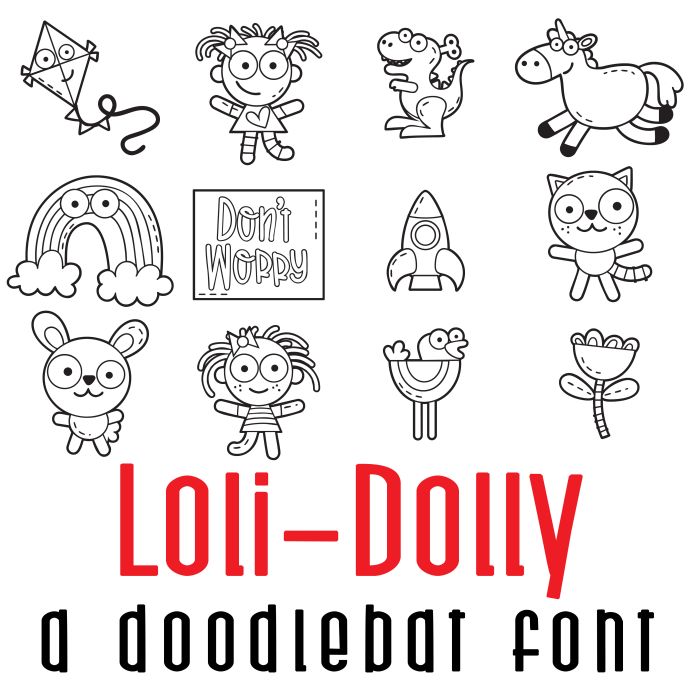
This adorable doodlebat font features 26 stitched cute images of dolls, rainbows, animals, and toys! Perfect for cards, crafts, gifts, decor, planner stickers, scrap book pages, classrooms and more!